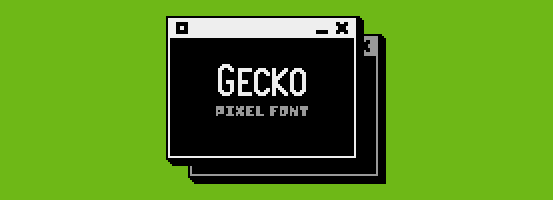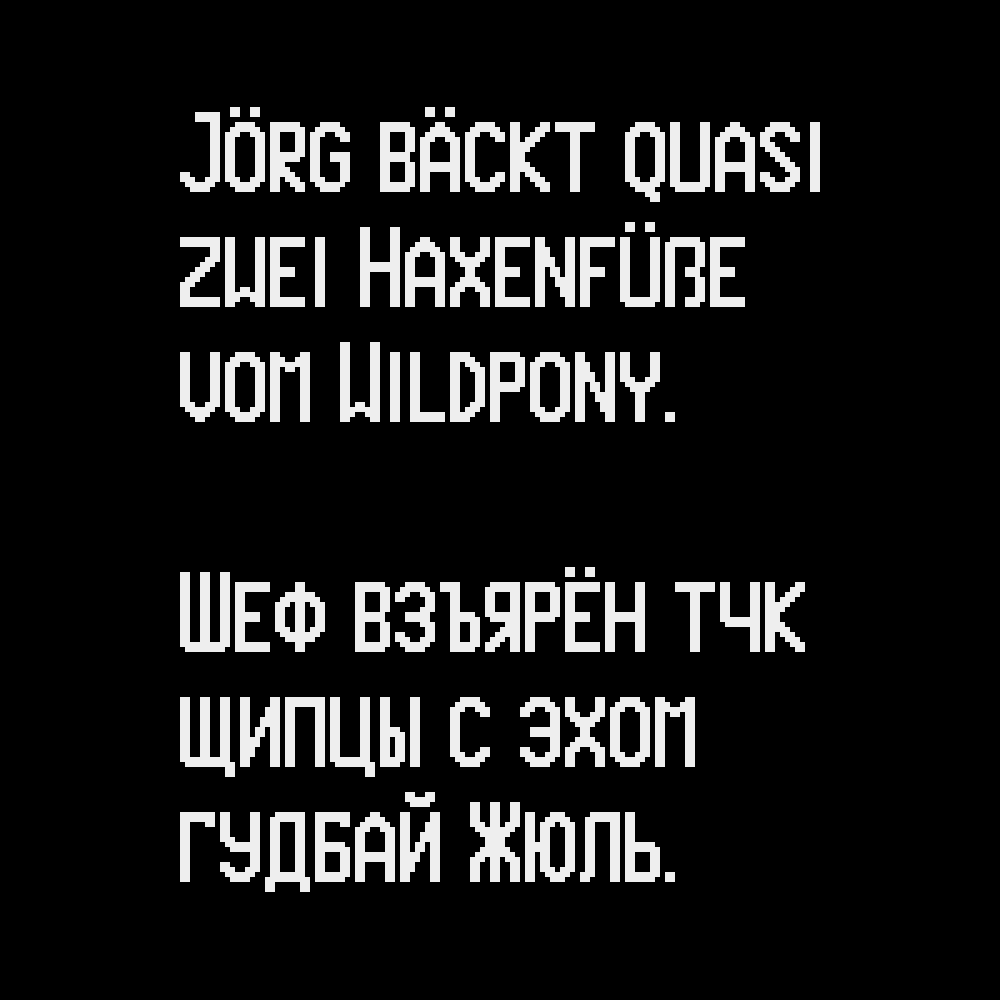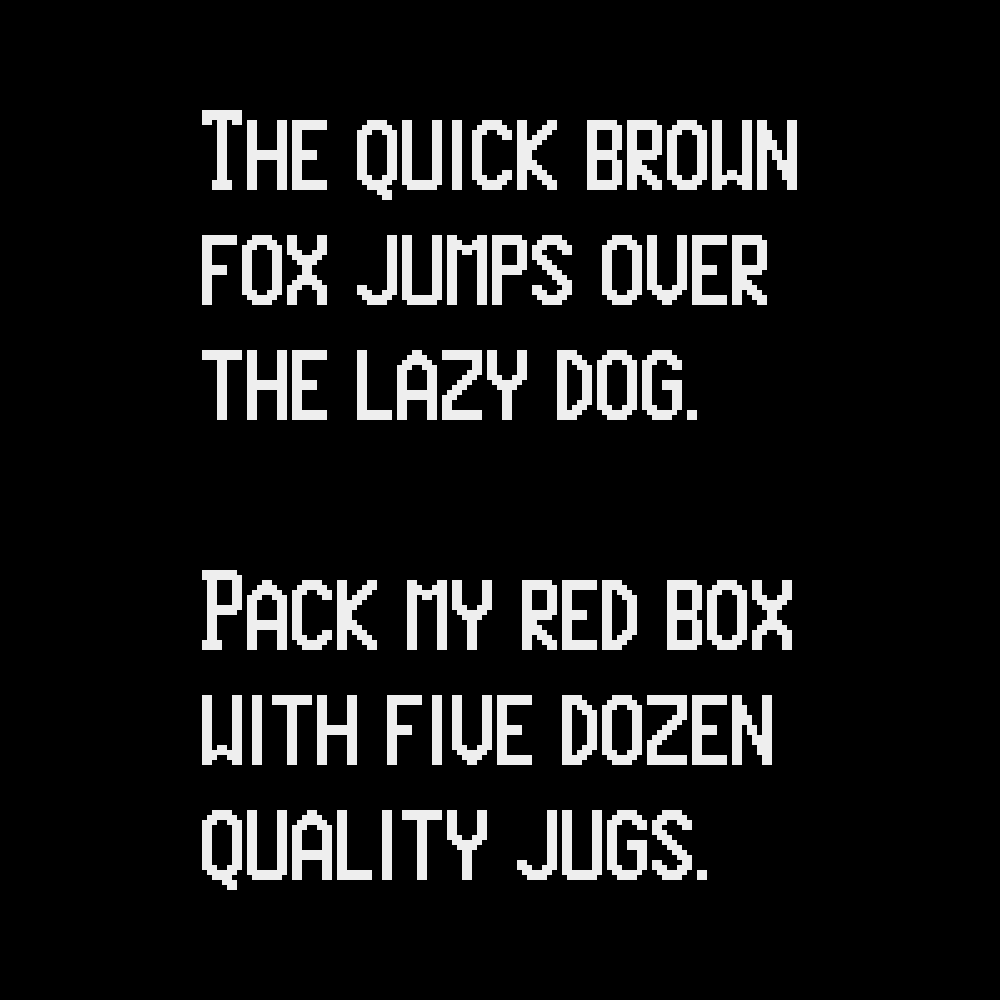
Pixel Font - GECKO
A downloadable pixel font
Gecko is a practical, impactful, smallcaps, 16px tall pixel font!
Full Character Set:
ABCDEFGHIJKLMNOPQRSTUVWXYZ
abcdefghijklmnopqrstuvwxyz
0123456789.,;:?!"'+-=*%_()
[]{}~#&@©®™°^`|/\<>…€$£¢¿¡“”‘’«»‹›„‚·• ÀÁÂÄÃÅĄÆÇĆÐÈÉÊËĘĞÌÍÎÏİŁÑŃÒÓÔÖÕŐØŒŚŞẞÞÙÚÛÜŰÝŸŹŻàáâäãåąæçćðèéêëęğìíîïıłñńòóôöõőøœśşßþùúûüűýÿźżАБВГҐДЕЁЄЖЗИІЇЙКЛМНОПРСТУФХЦЧШЩЪЫЬЭЮЯабвгґдеёєжзиіїйклмнопрстуфхцчшщъыьэюя
Supported languages:
English, French, Italian, German, Spanish, Portuguese, Danish, Swedish, Norwegian, Icelandic, Hungarian, Polish, Turkish*, Russian, Ukrainian…